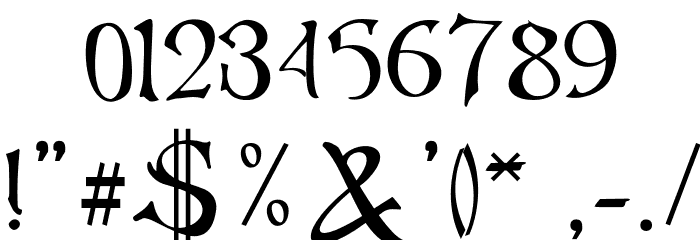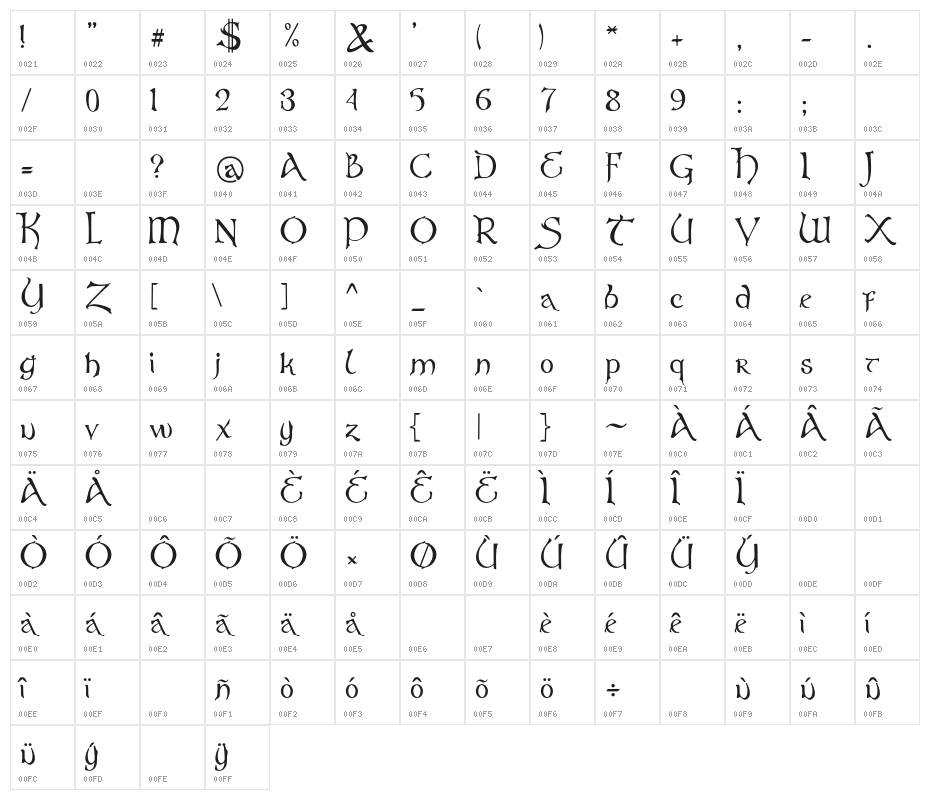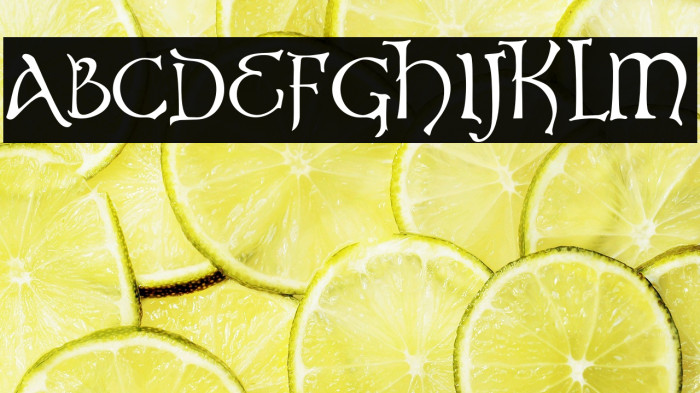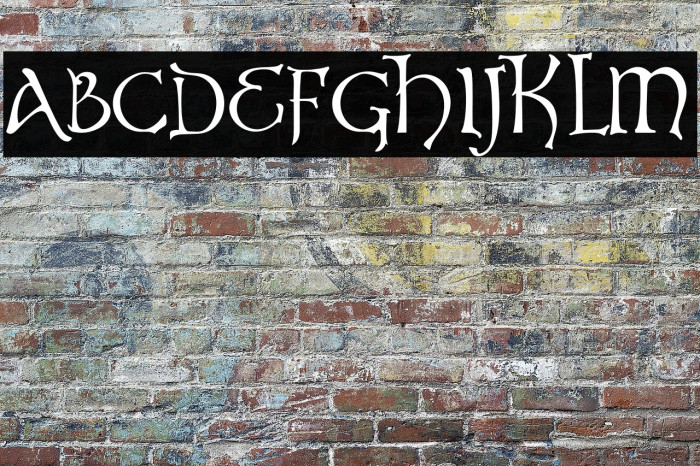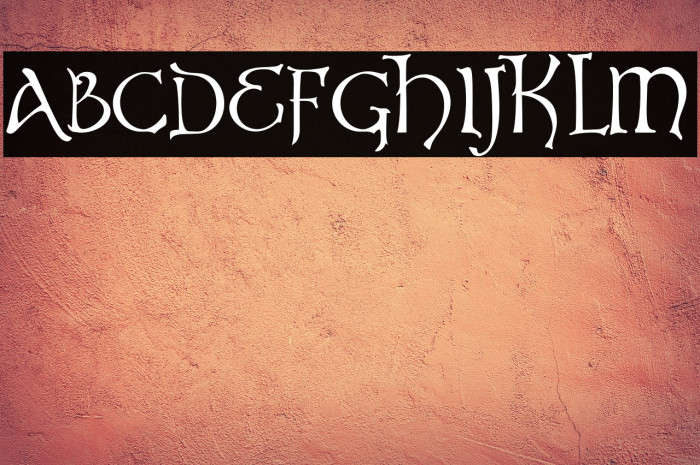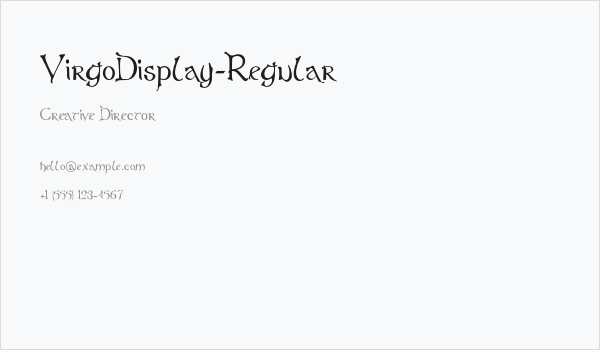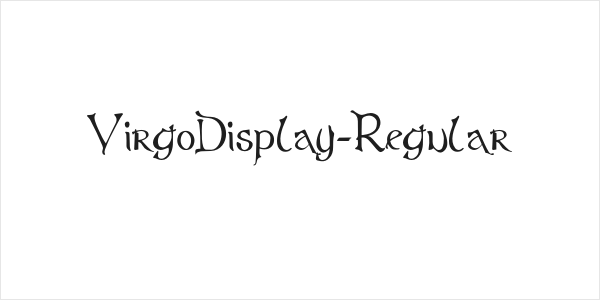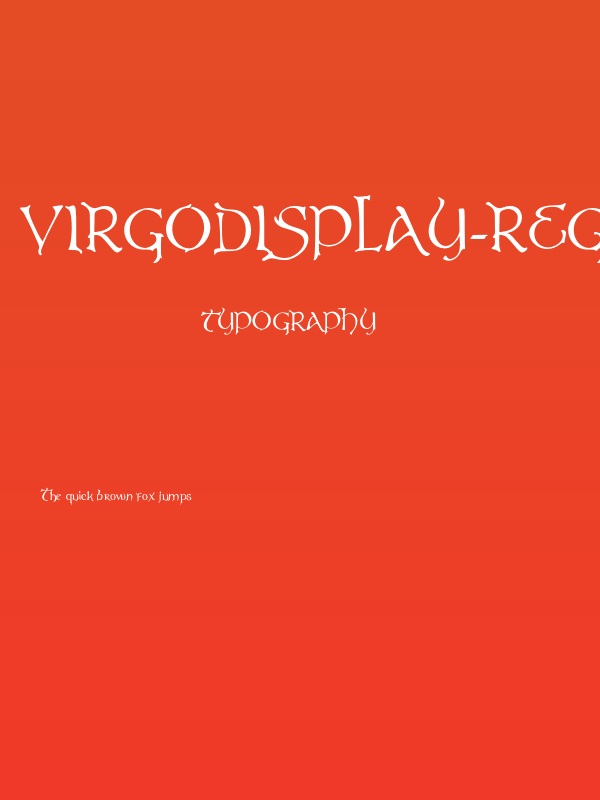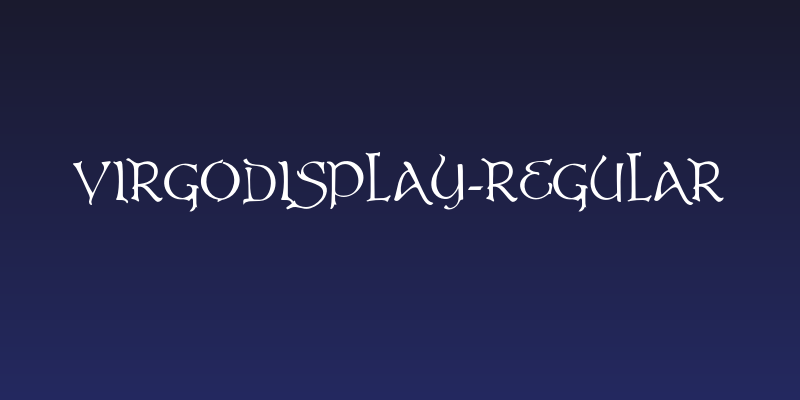
VirgoDisplay-Regular Font
VirgoDisplay-Regular Description
This font features a unique and artistic style, reminiscent of calligraphy with a modern twist. The characters are elegantly crafted with a slight flourish, giving them a dynamic and flowing appearance. The uppercase letters exhibit a strong presence with sharp, angular lines, while the lowercase letters maintain a softer, more rounded form. Numerals are consistent with the overall style, providing a cohesive look. The special characters are distinct and maintain the artistic flair of the font, making it suitable for creative and expressive projects.
| Use Case | Headlines, Logos, Artistic projects |
| Proposed Projects | Ideal for invitations, branding, artistic posters, and any project requiring a touch of elegance and creativity. |